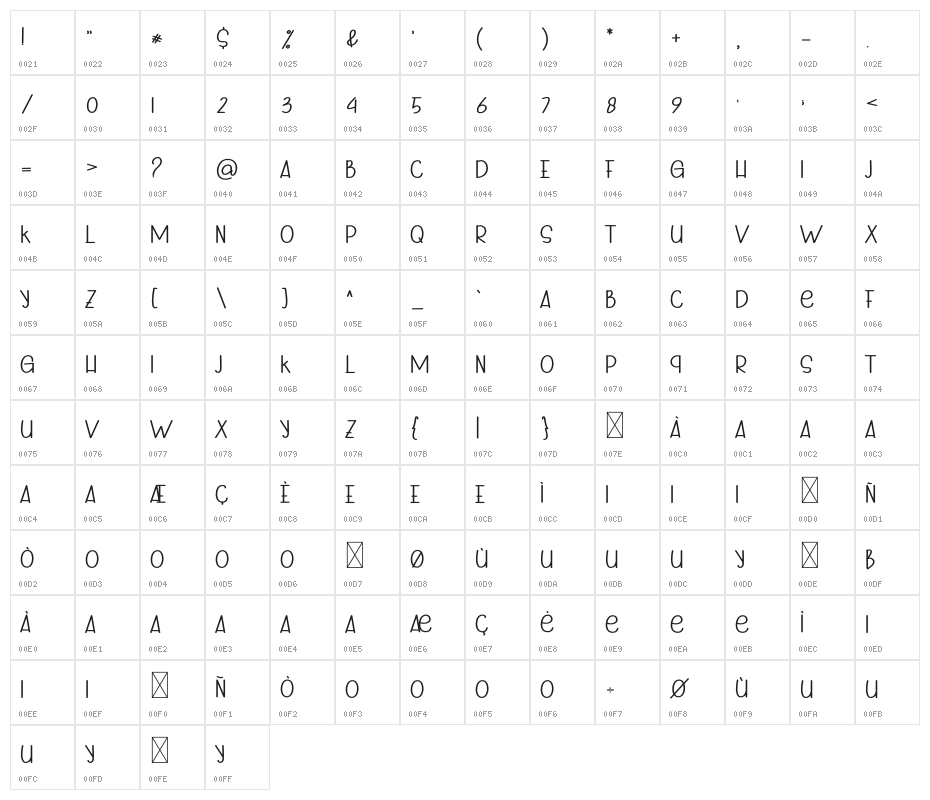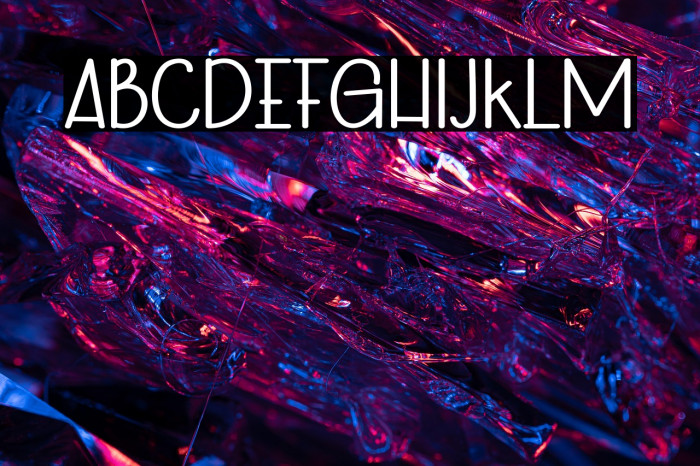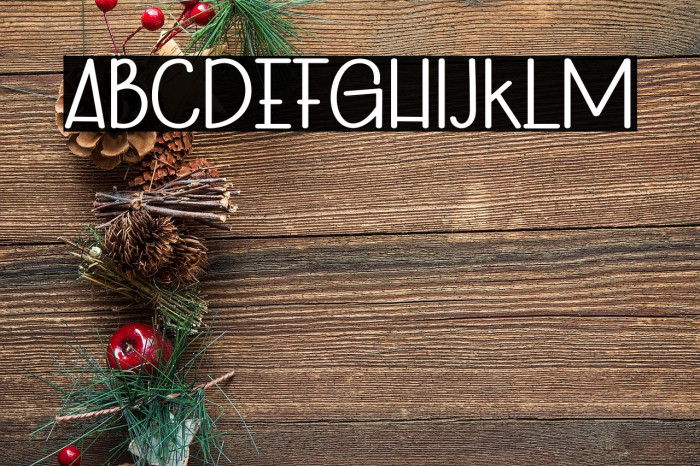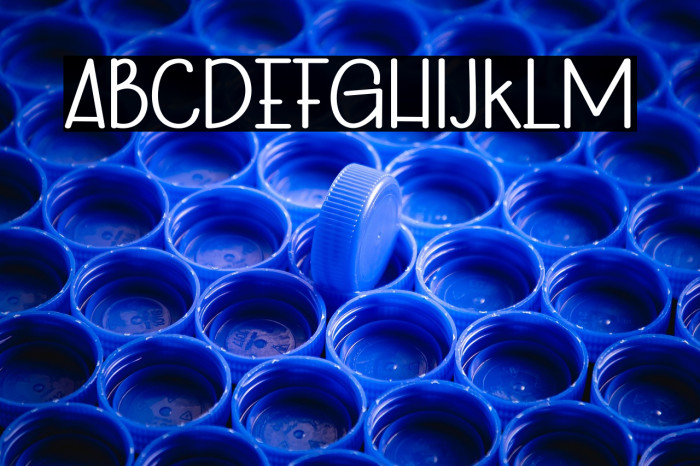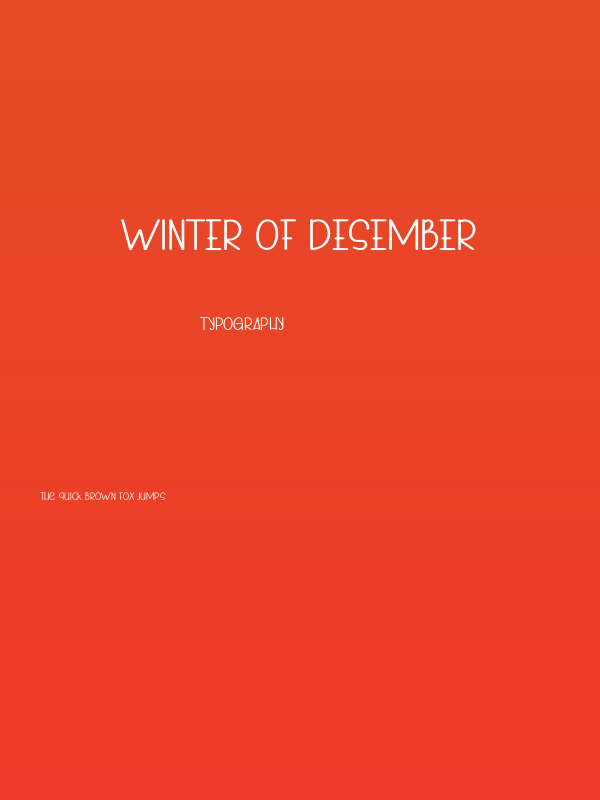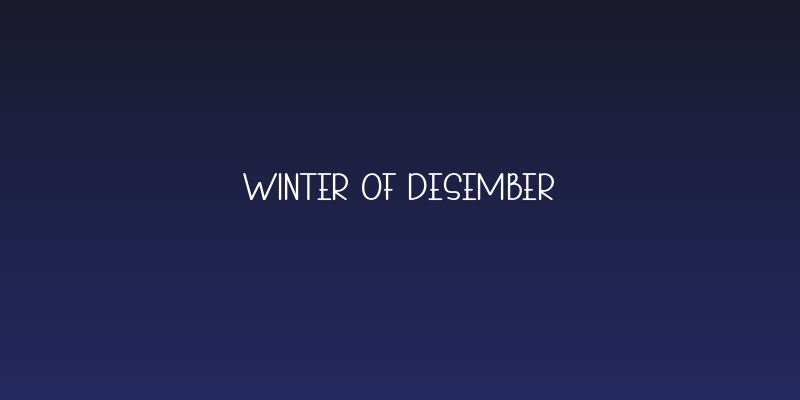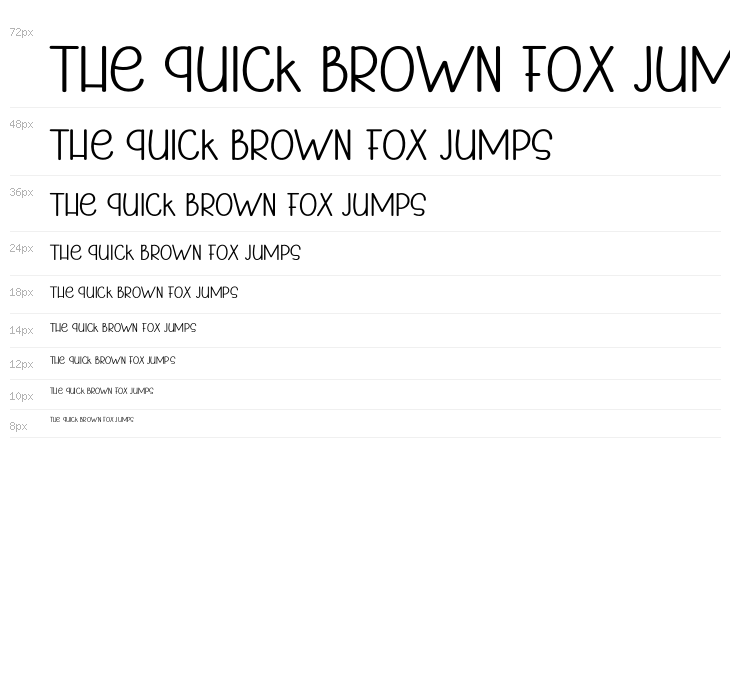
Winter Of Desember Font
Winter Of Desember Description
A playful and rounded sans-serif font with a handwritten feel, featuring consistent stroke width and slightly elongated characters.
| Overall Style | Playful, Casual |
| Use Case | Headlines, Informal text, Branding |
| Proposed Projects | Children's books, casual branding, playful posters. |